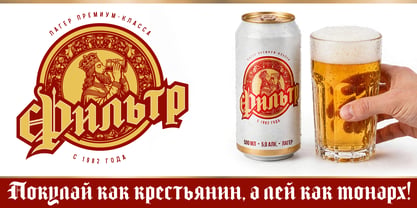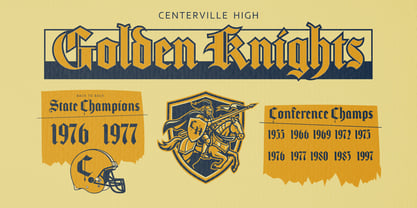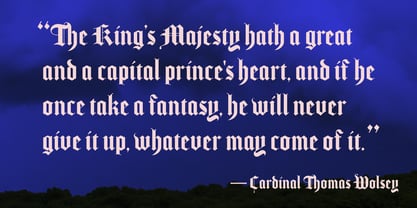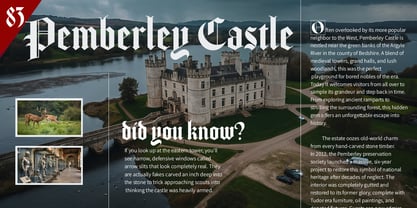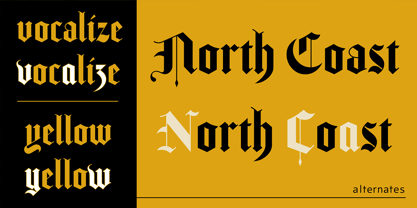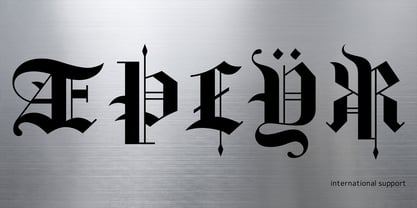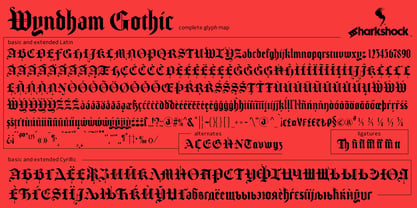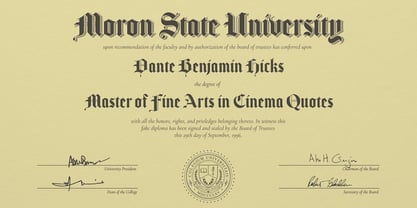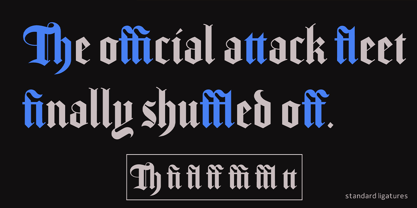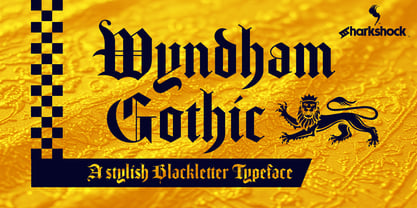
Wyndham Gothic
A distant cousin of The Helmswald Post, Wyndham Gothic is a smooth blackletter typeface with roots that stretch back to the 12th century. This one puts special emphasis on legibility and clean, simple glyph structure. The use of flourishing lines helps preserve the cursive rhythm of the blackletter style, which mimics a broad-edged pen. Occasionally, geometric shapes are mixed in to replace traditionally curved elements and vice versa. This is most evident in letters such as D, B, and G. The result is a pleasant flow that works well in a variety of settings. Try Wyndham Gothic in a medieval poster, restaurant logo, or album art.
Wyndham Gothic is well equipped featuring Basic and Extended Latin, diacritics, Cyrillic, punctuation, alternates, fractions, ligatures, and kerning. Please check the glyph maps for all supported characters.